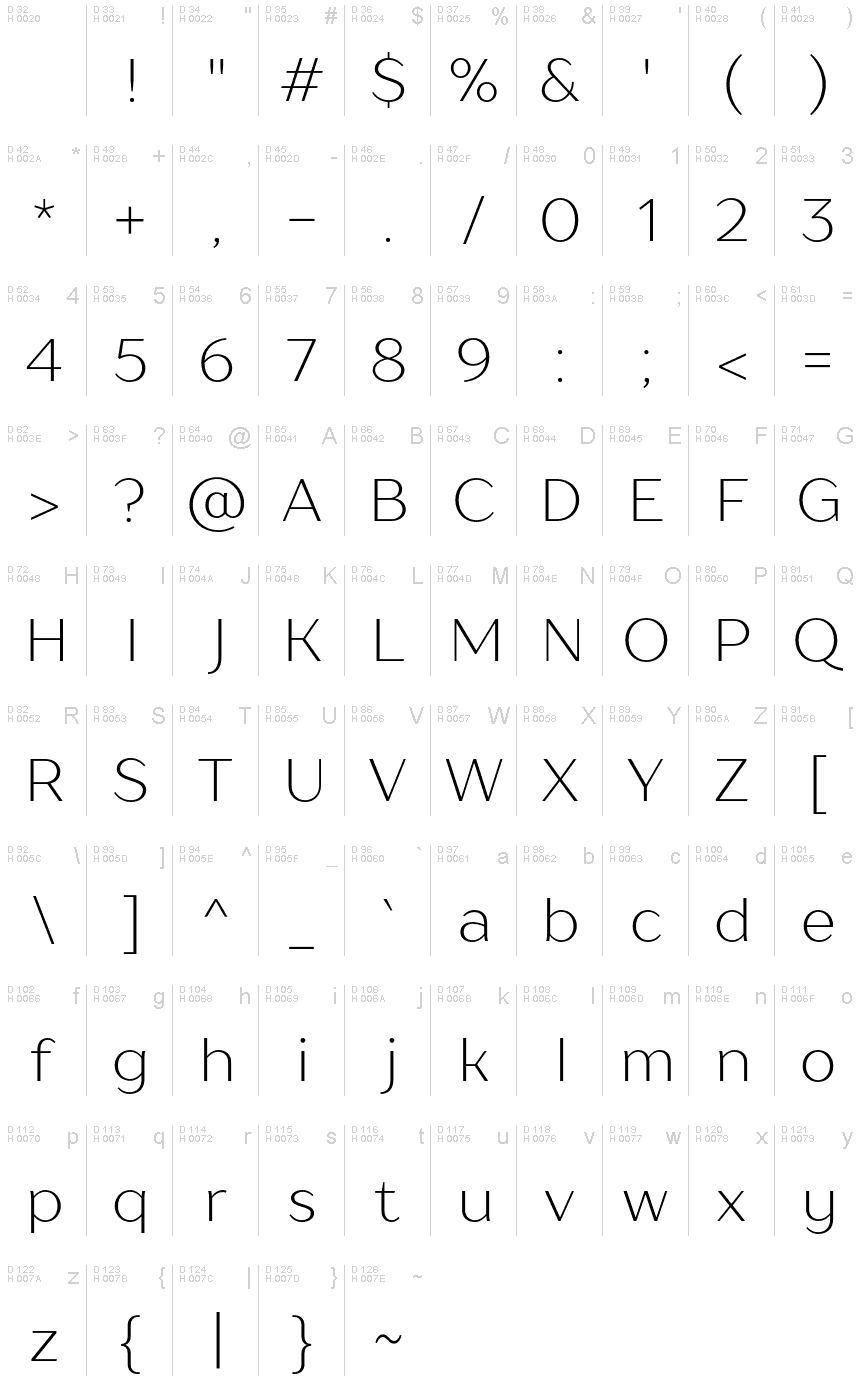
TT Drugs Trial Light
TT Drugs Light is a stunning sans serif font from TypeType Foundry. With its extra-light weight, this font is perfect for projects that require a sleek and modern look. Whether you're designing a website, creating social media graphics or crafting a logo, TT Drugs Light will add an elegant touch to any design. Its clean lines and minimalist aesthetic make it suitable for a wide range of applications, including fashion magazines, beauty blogs, tech startups and more. So why not give TT Drugs Light a try and take your designs to the next level?